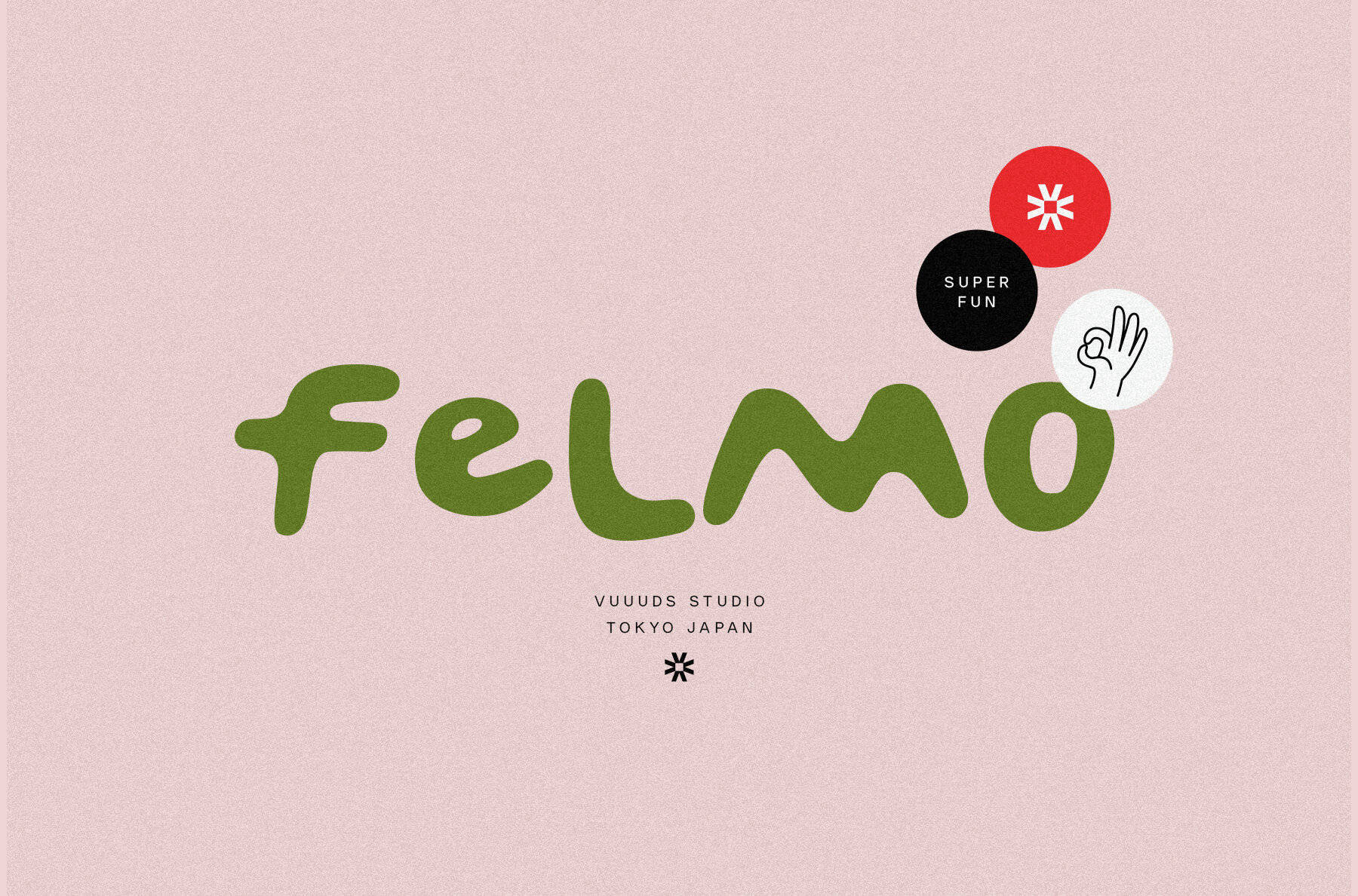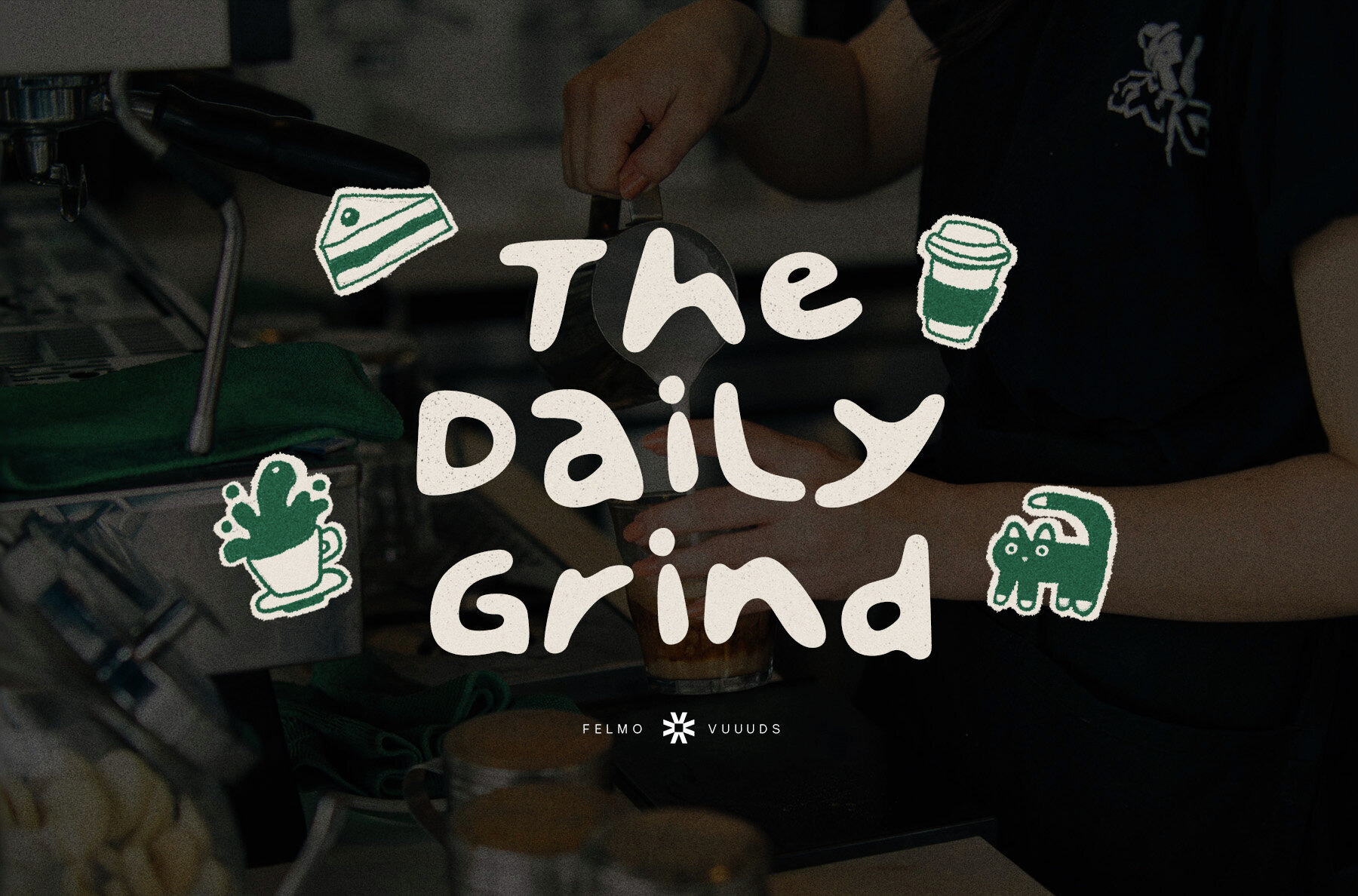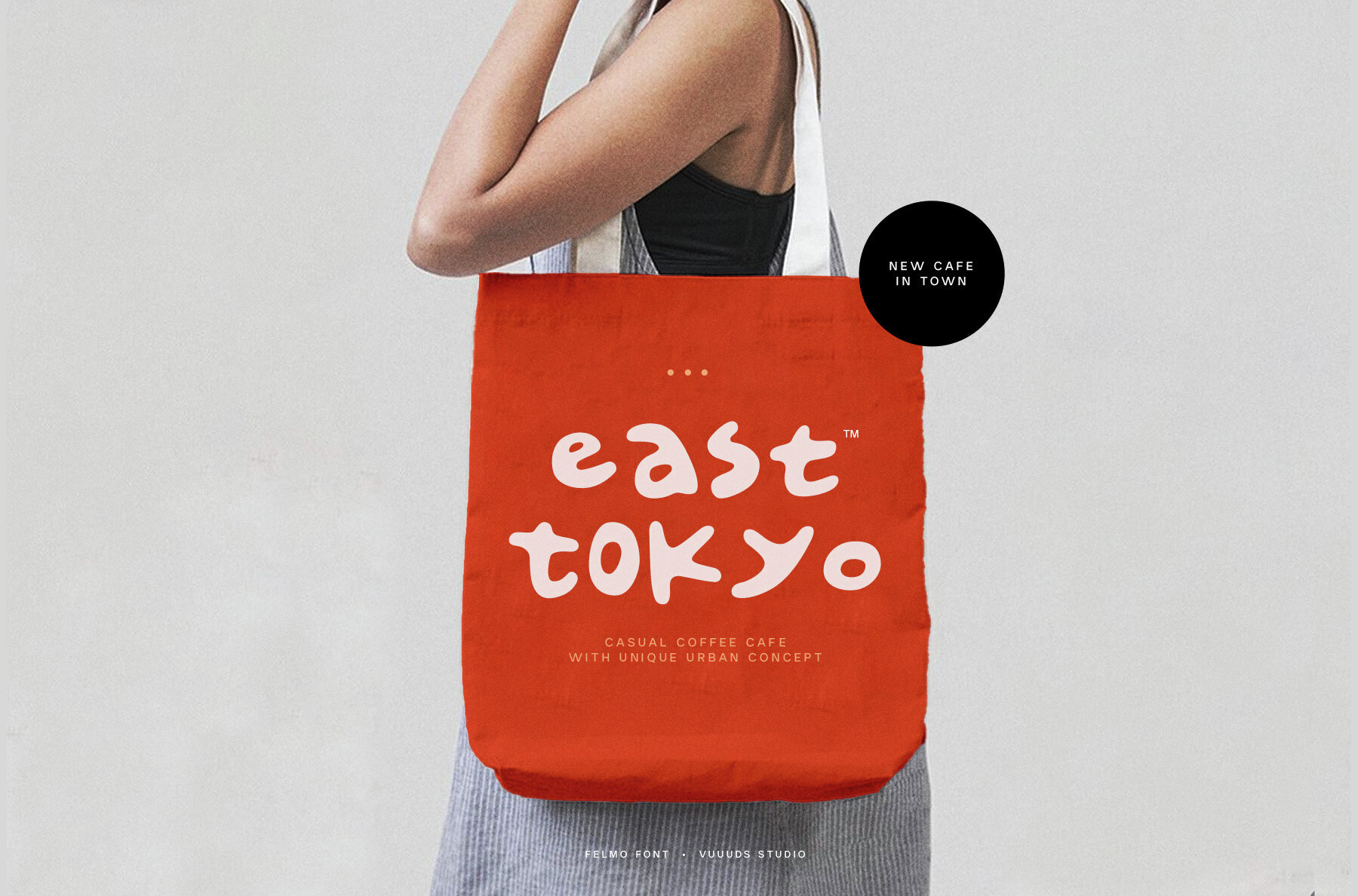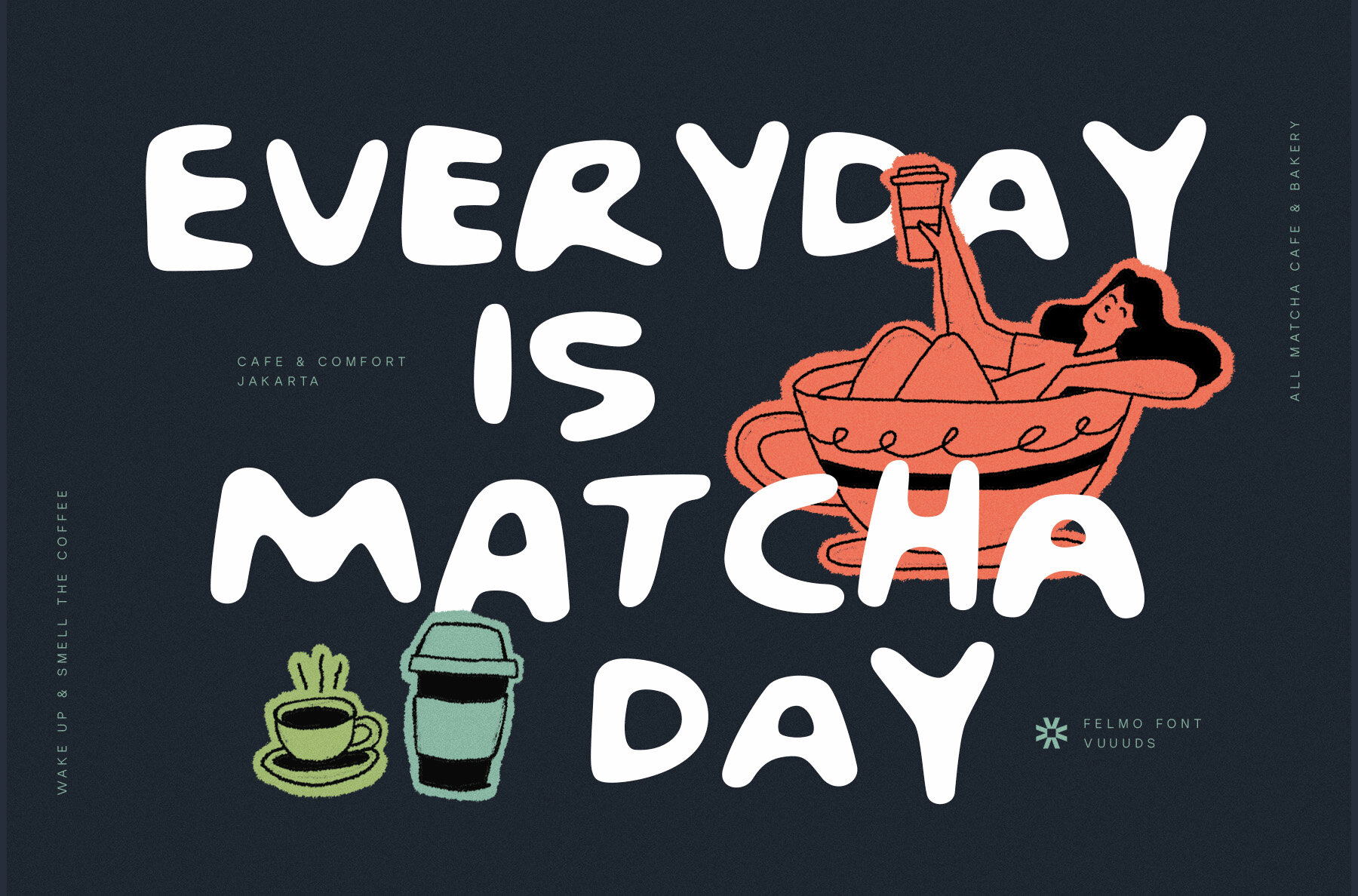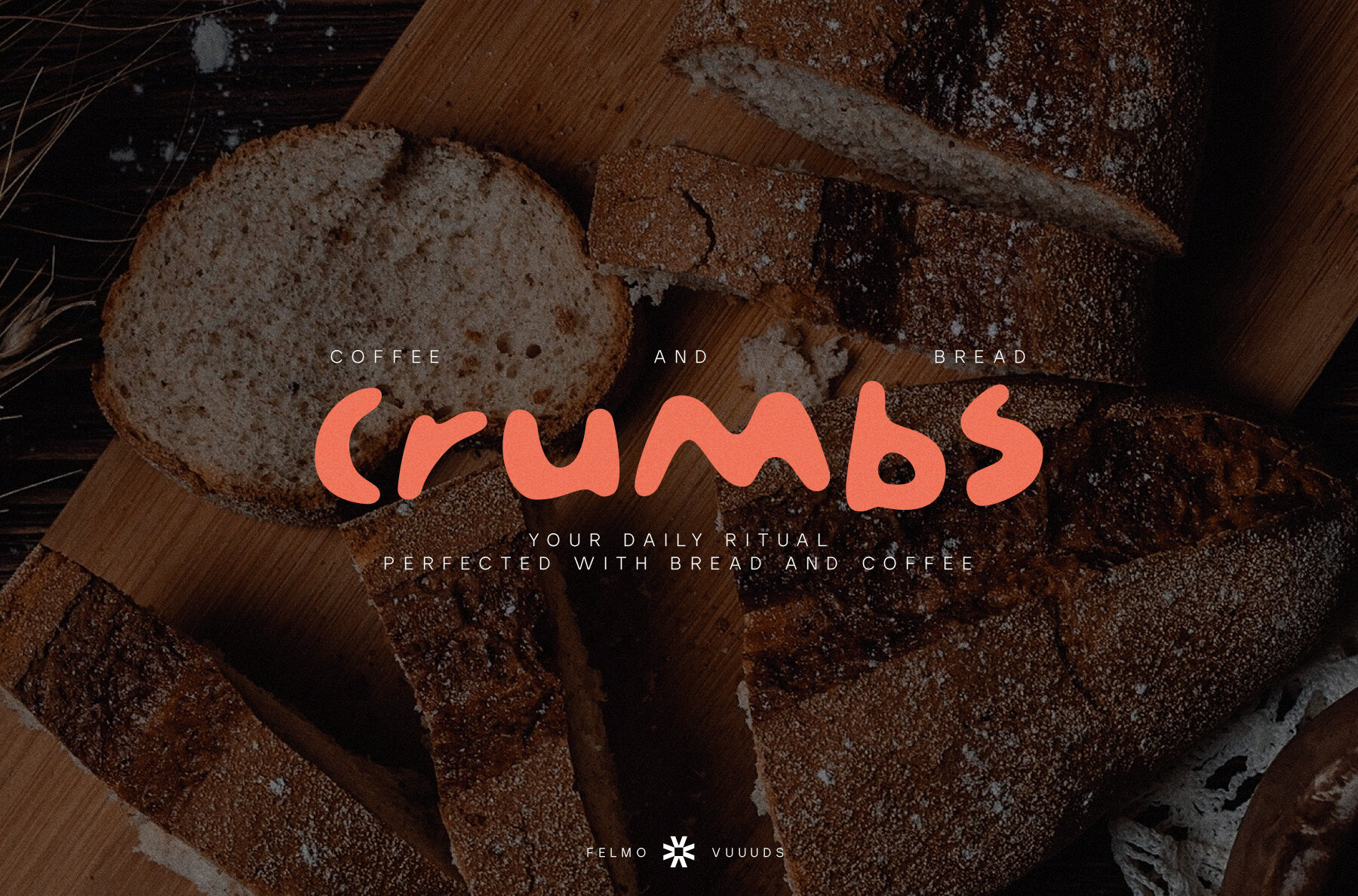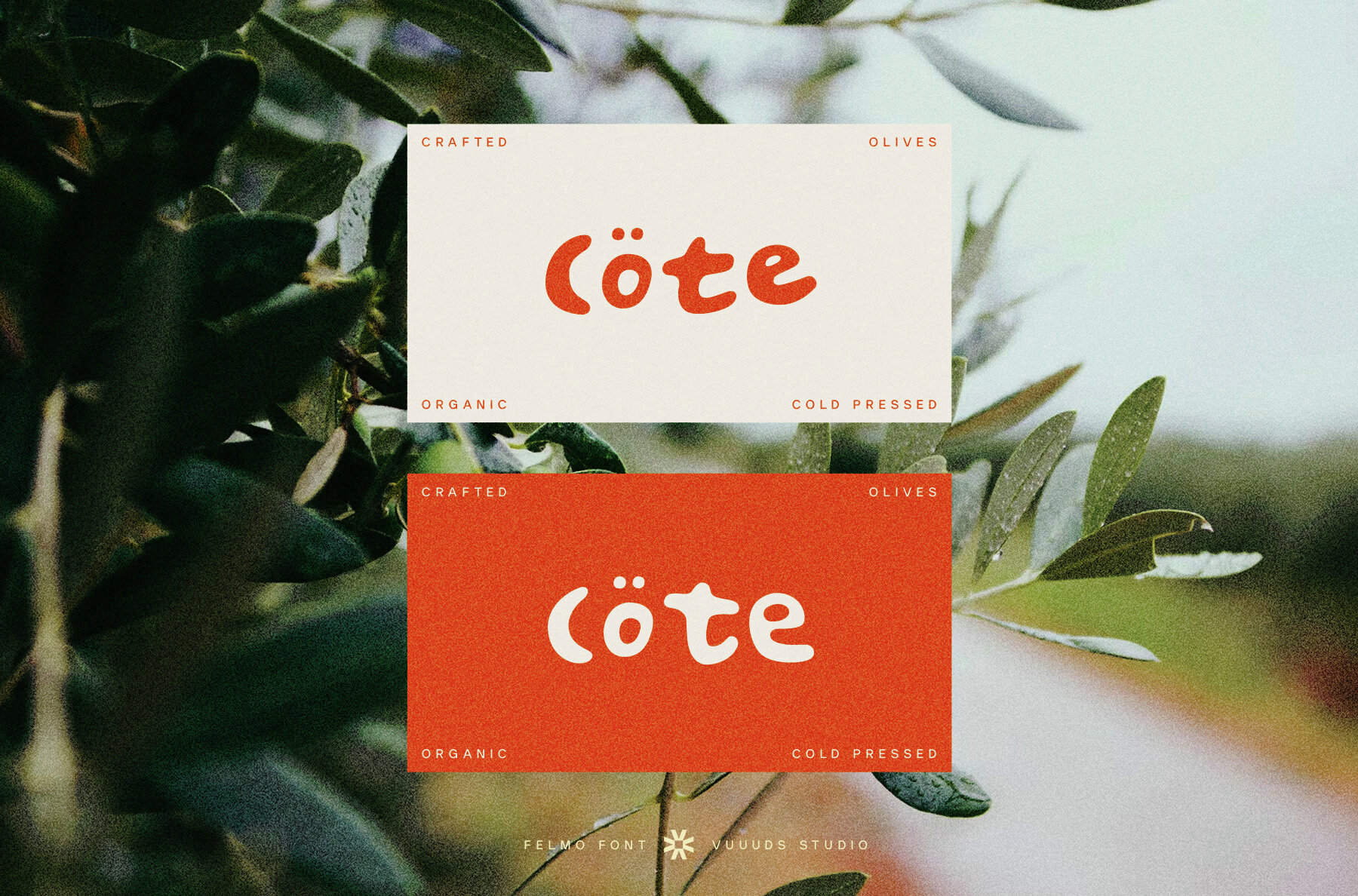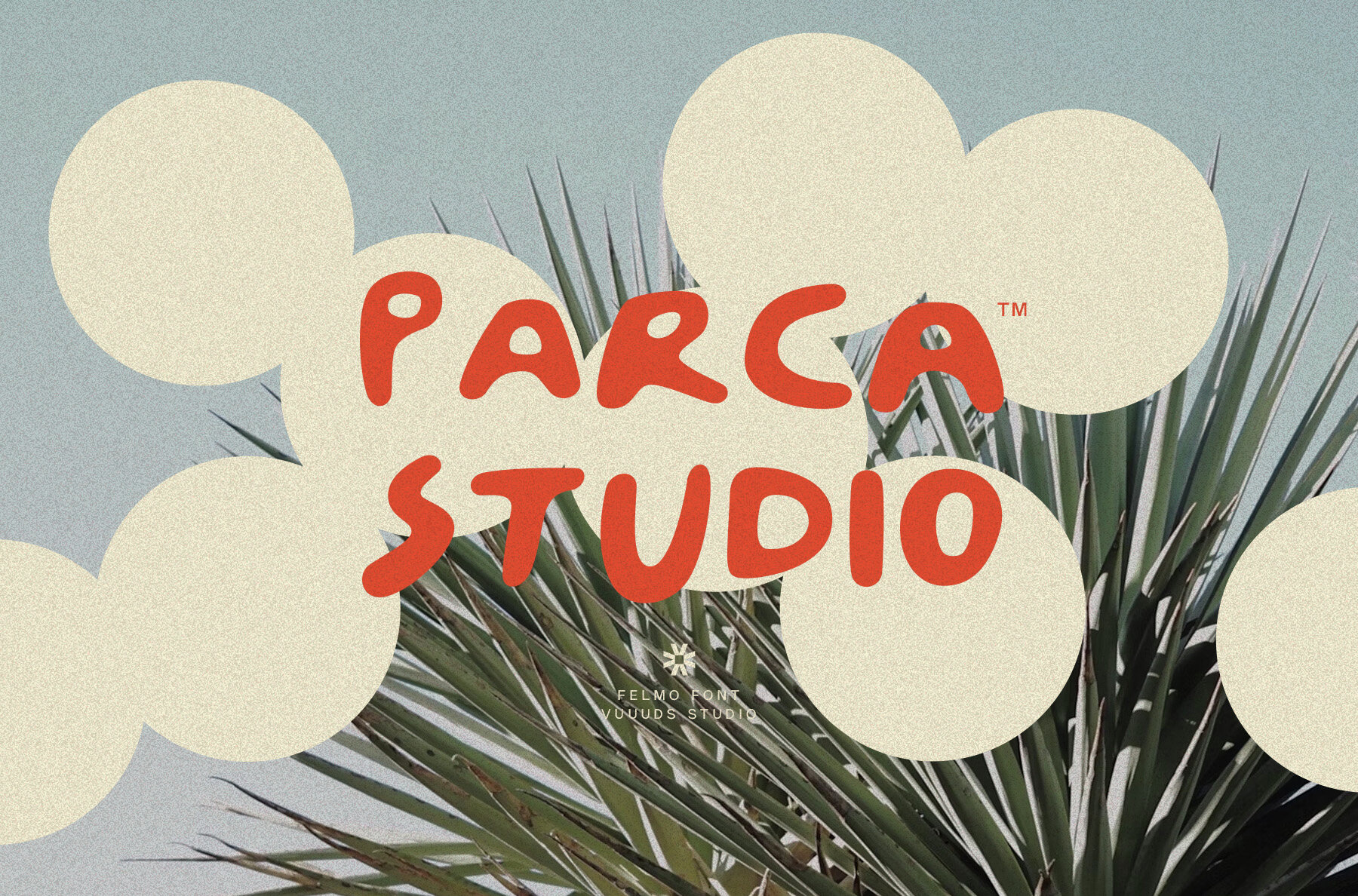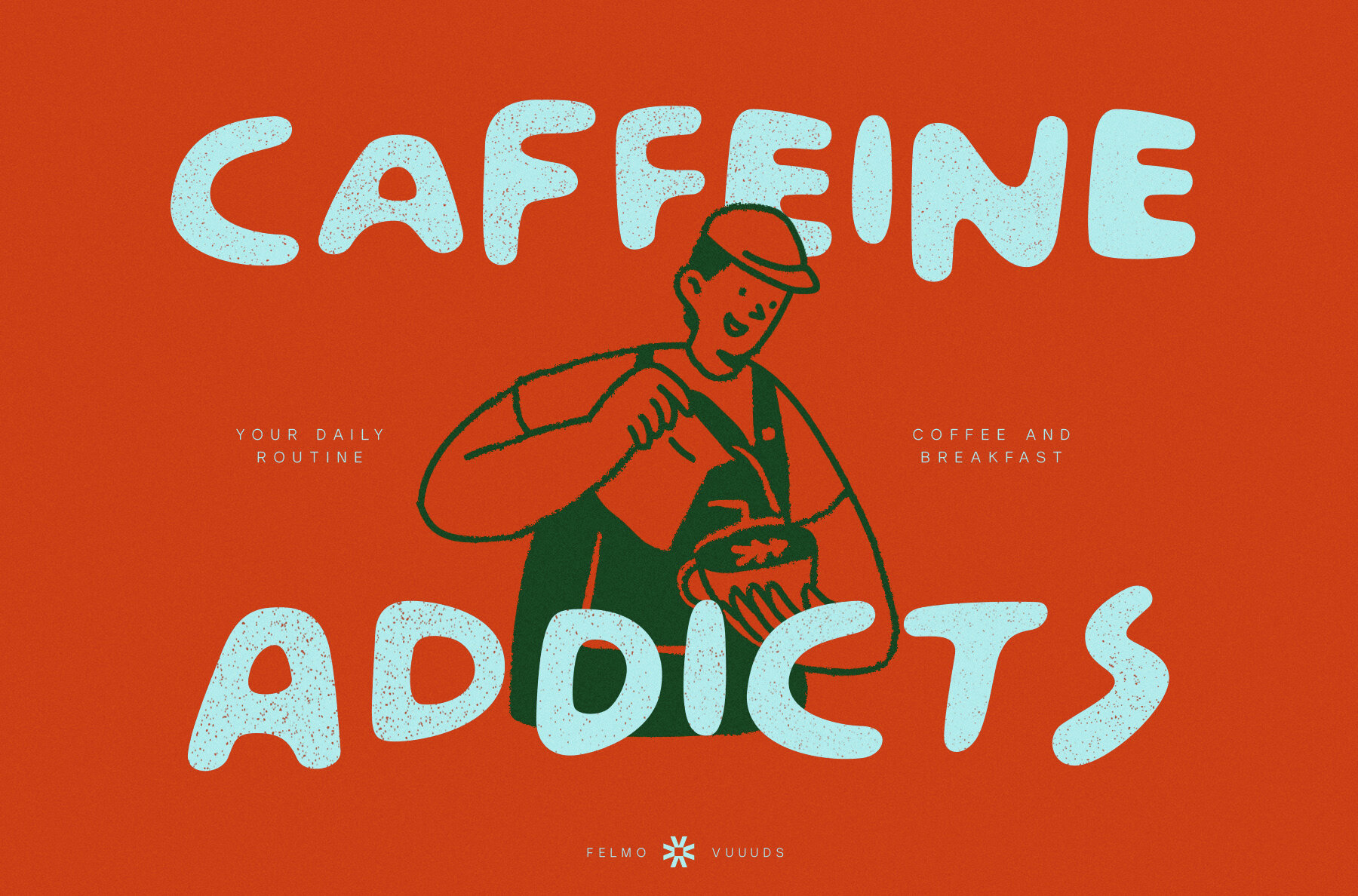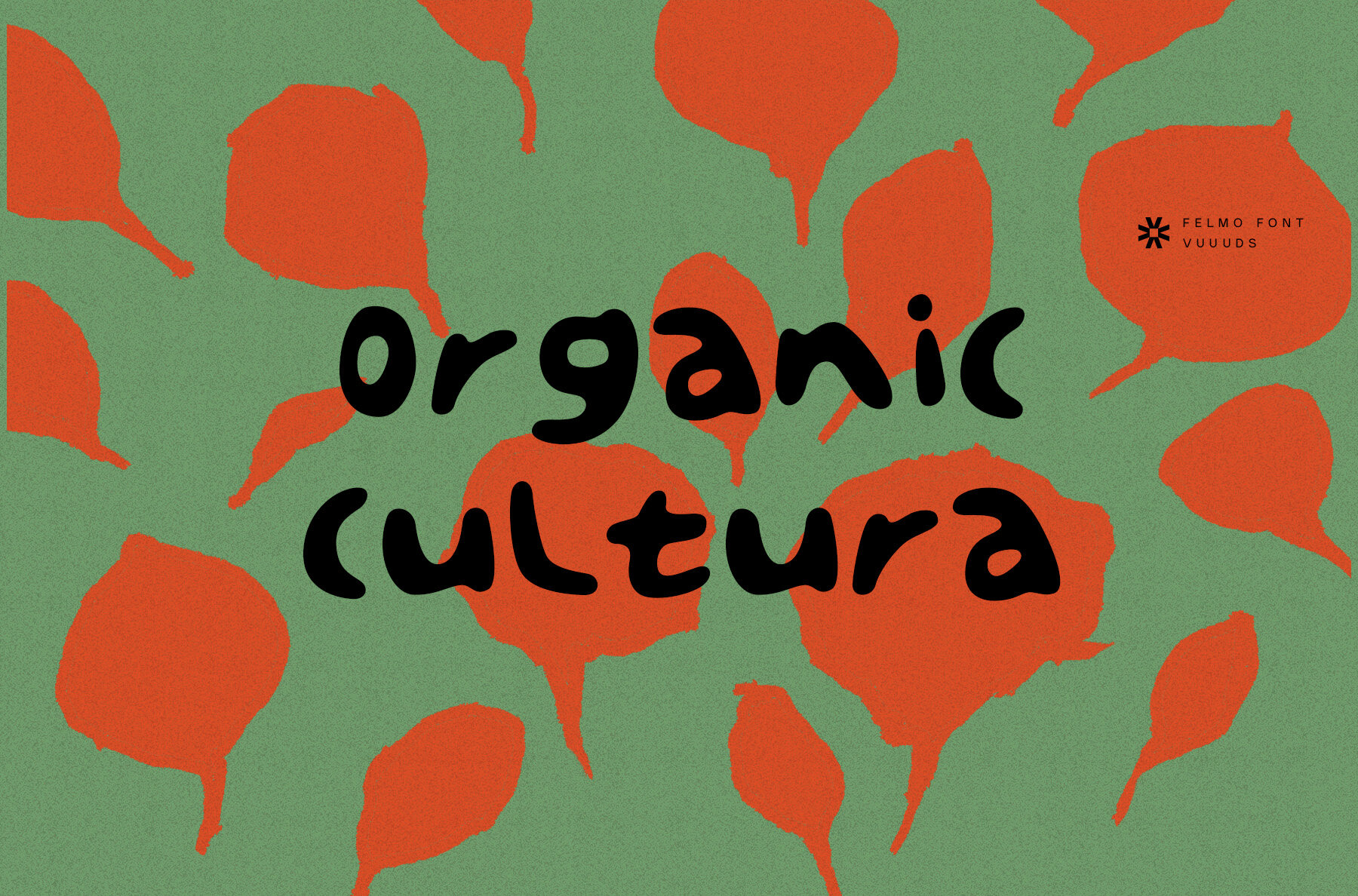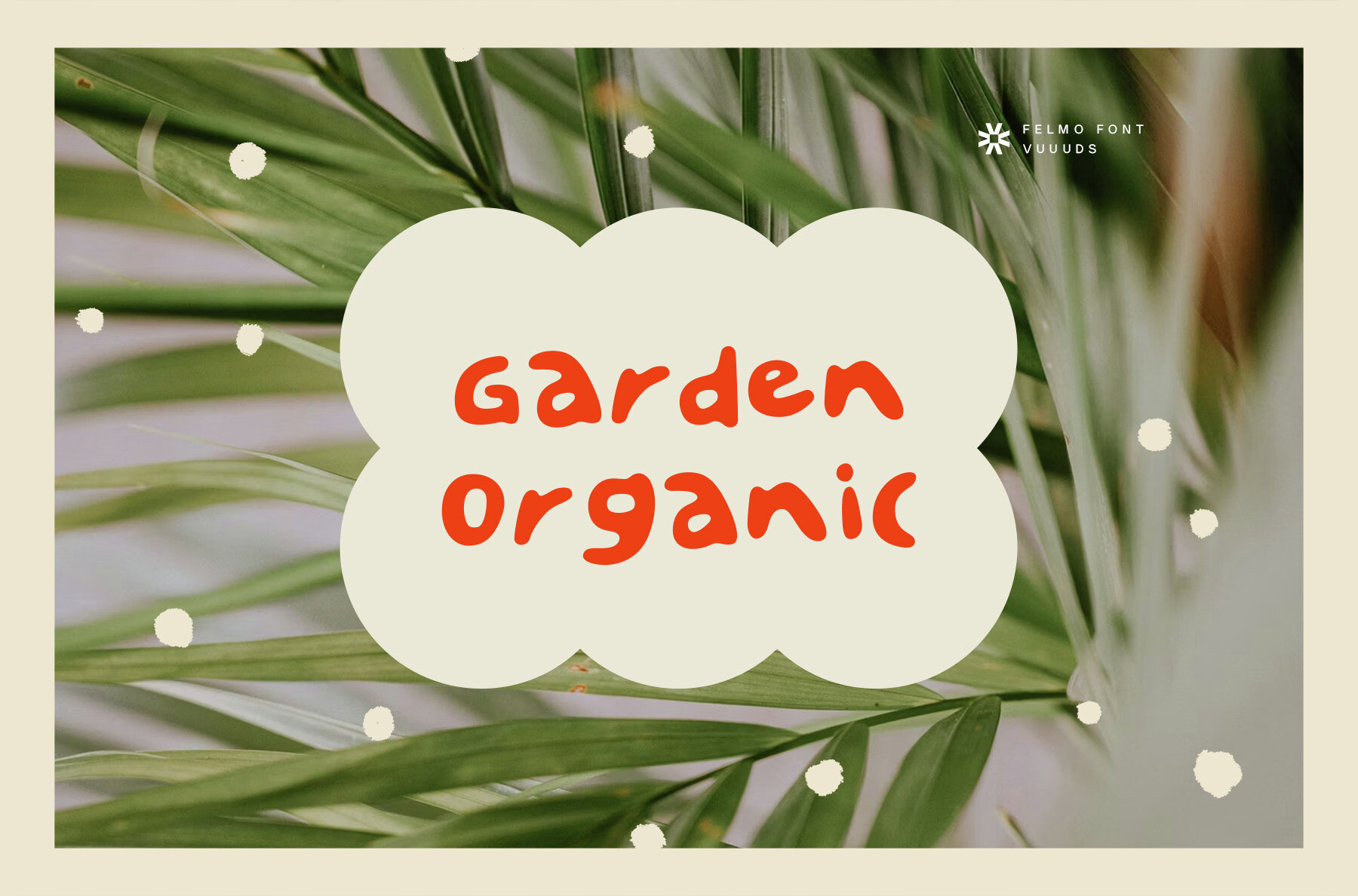
Felmo Font
Felmo
The Felmo font stands out as a casual sans serif, featuring uniquely crafted letters that add a distinctive charm to any design project. This typeface includes beautiful alternate glyphs, accessible via Font Book on Mac or Windows Character Map. Detailed instructions for accessing these alternate glyphs are provided in the accompanying tutorial link included in the download package.Felmo: A Uniquely Crafted Casual Sans Serif